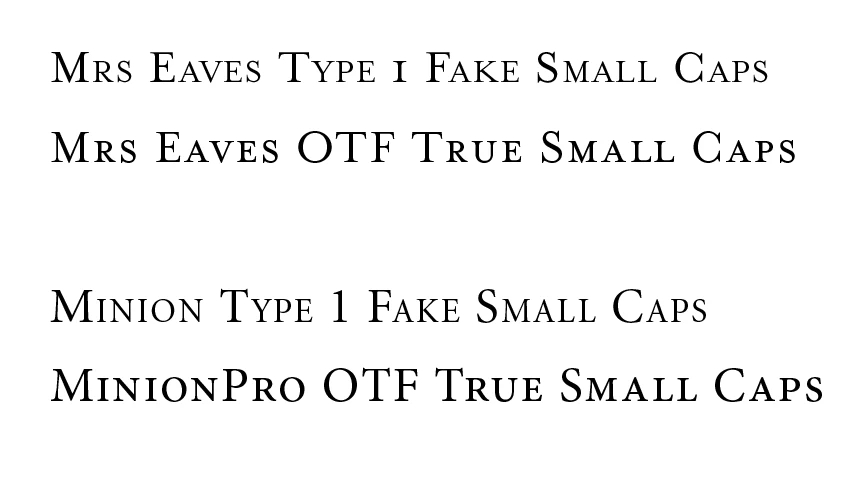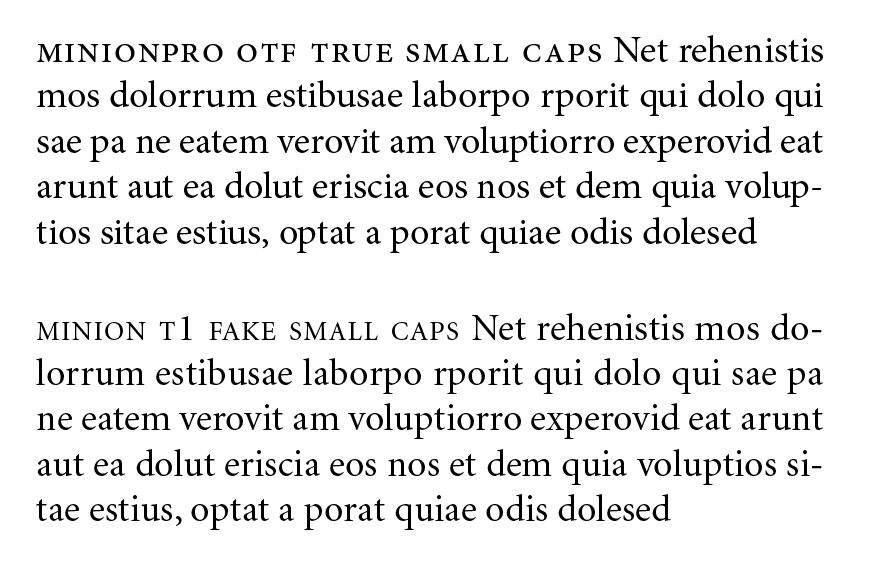
Need help with a Font Issue: Change in the way Small Caps are processed?
My client prefers the look of the small caps applied to the "Regular" Font (in this case Bembo) as opposed to the Small Caps font version of the font (chunkier and less elegant). I *used* to be able to do this--in fact it seemd to do it without any fussing on my part. But this time when I opened the file, it was substituting the Small Caps font. So, I deleted the Small Caps font from my fonts folder. But now instead of being able to apply the small caps button to the font, it doesnt work, in fact it is showing up as Lucida or something like that, with a pink band. If I click on TT rather than TT, it changes back to Bembo.
Is this a change in the new upgrade, which I just installed? Is there a way around this? Please help, thank you!
as opposed to the Small Caps font version of the font (chunkier and less elegant)
If you really want fake small caps—small caps that are not drawn to match the capital’s weight & width—then don’t use an .otf font.
Usually with .otf fonts the true small caps are included with the font and are used when you spec Small Caps either as Small Caps or Open Type>All Small Caps from the Character panel.
True small caps normally are preferred because they match the font’s weight when are mixed with upper and lowercase text. Here the T1 version’s small cap appears to be a lighter weight. In high resolution print the weight difference becomes more obvious.
Yes, very true. But in this case the client is always right : ) . Beside which with fake caps you can change the proportion of small caps to regular caps to fit what you like. These small caps aren't used in a conventional way anyway. I agree that when used as above the real ones look much nicer.
I think you‘ll have to use TT or T1 fonts, or avoid the Small Cap spec and make a custom Character Style that sizes capitals. The point of OTF fonts is to fold true small caps, full ligature sets, number sets, etc. into a single font—they are not limited to 256 glyphs.
Taking the first sentence first - did you use Bembo small caps (I assume you realise that small caps are especially designed as small caps and are not a smaller size of the capital letters) and are you saying your customer didn't like them?
Hi Derek, well, it's a long history, but in answer to your question, at one point the small caps font was substitutd and the client did not like that look